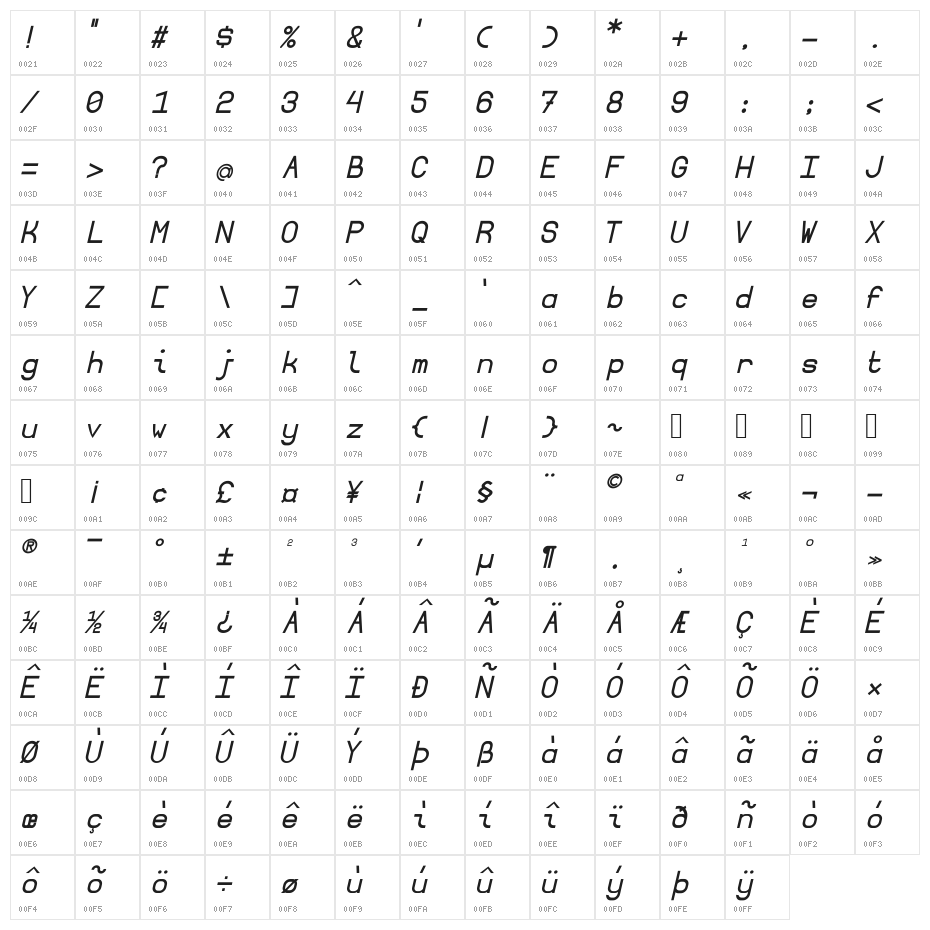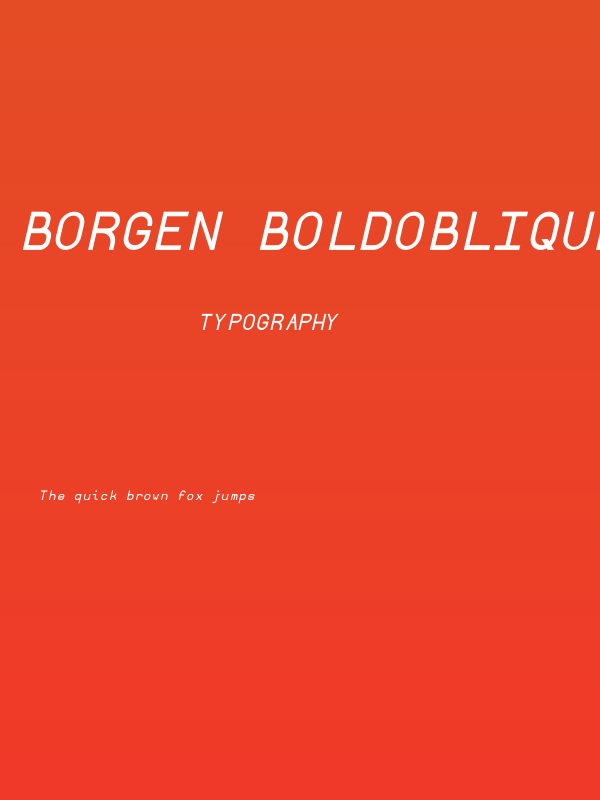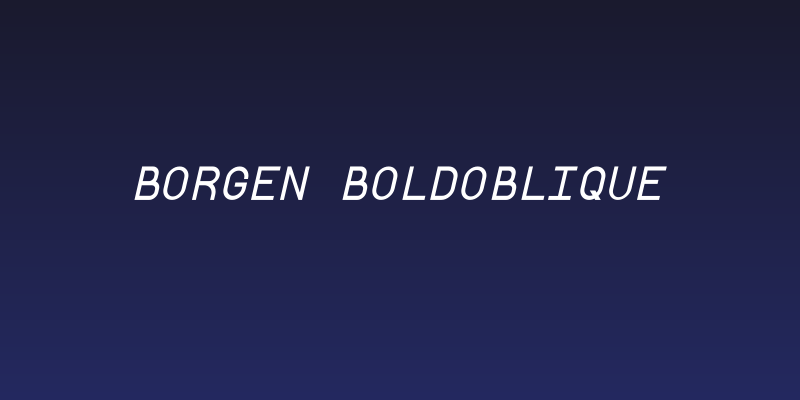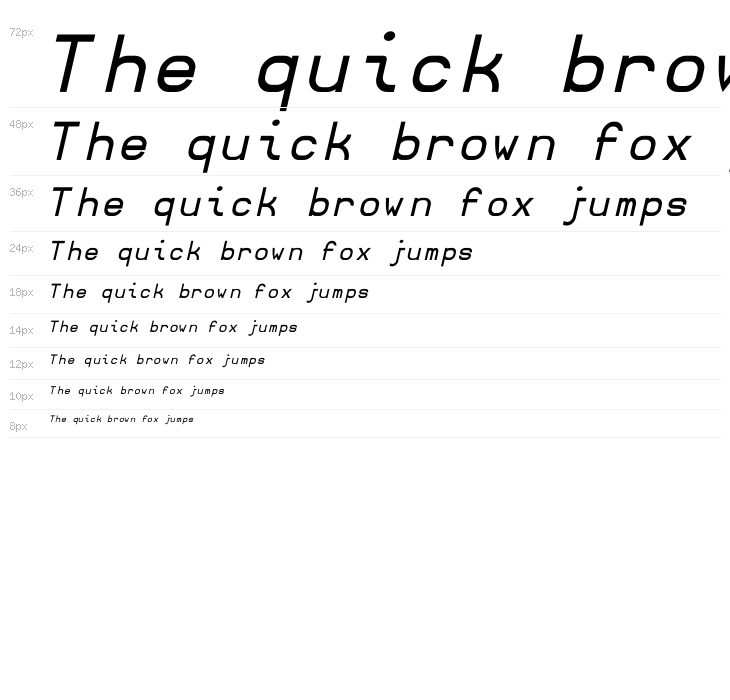
Borgen BoldOblique Font
Borgen BoldOblique Description
This font features a bold and oblique style, characterized by its slanted and robust letterforms. The uppercase and lowercase letters maintain a consistent slant, providing a dynamic and forward-moving appearance. The numerals are clear and bold, ensuring readability. Special characters are well-defined, complementing the overall aesthetic. The font's design is modern and sleek, making it suitable for various applications where a bold statement is needed.
| Use Case | Headlines, Logos, Advertising |
| Proposed Projects | Ideal for branding, advertising, and headlines where a strong and modern impression is desired. |